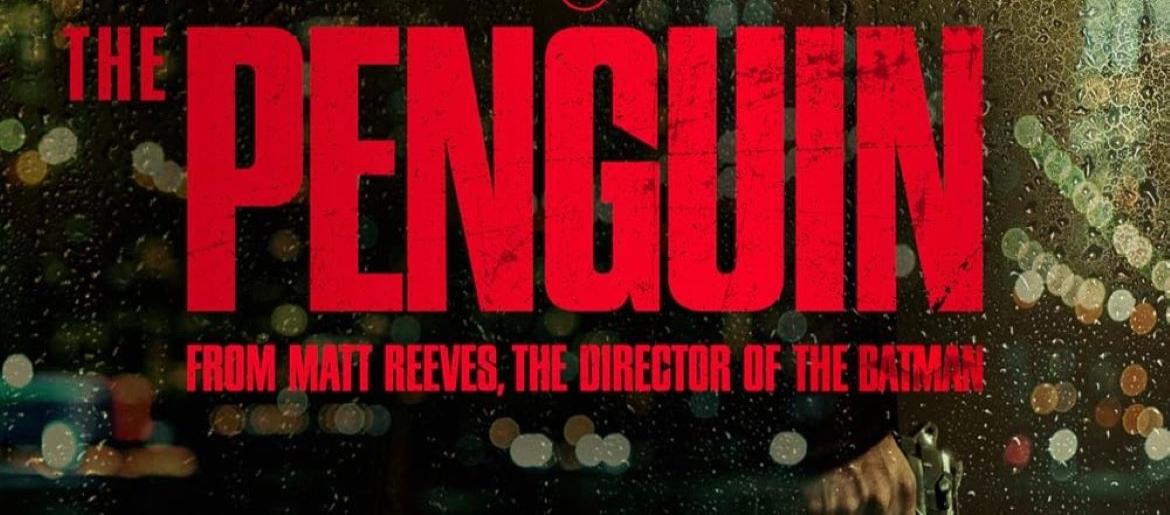
The Penguin Font
The Penguin font captures the dark, sophisticated edge of the DC character The Penguin. With sharp, bold lettering and a sleek, villainous style, it reflects themes of power, crime, and Gotham’s underworld. Ideal for comic book designs, event posters, or fan art, it adds elegance, menace, and authority to your creative projects.